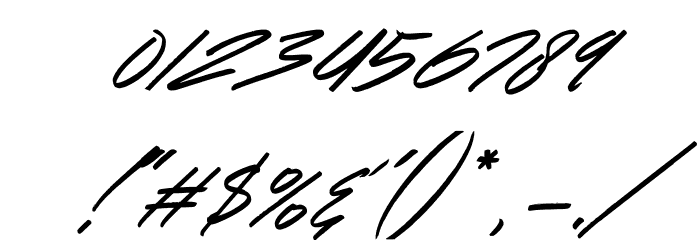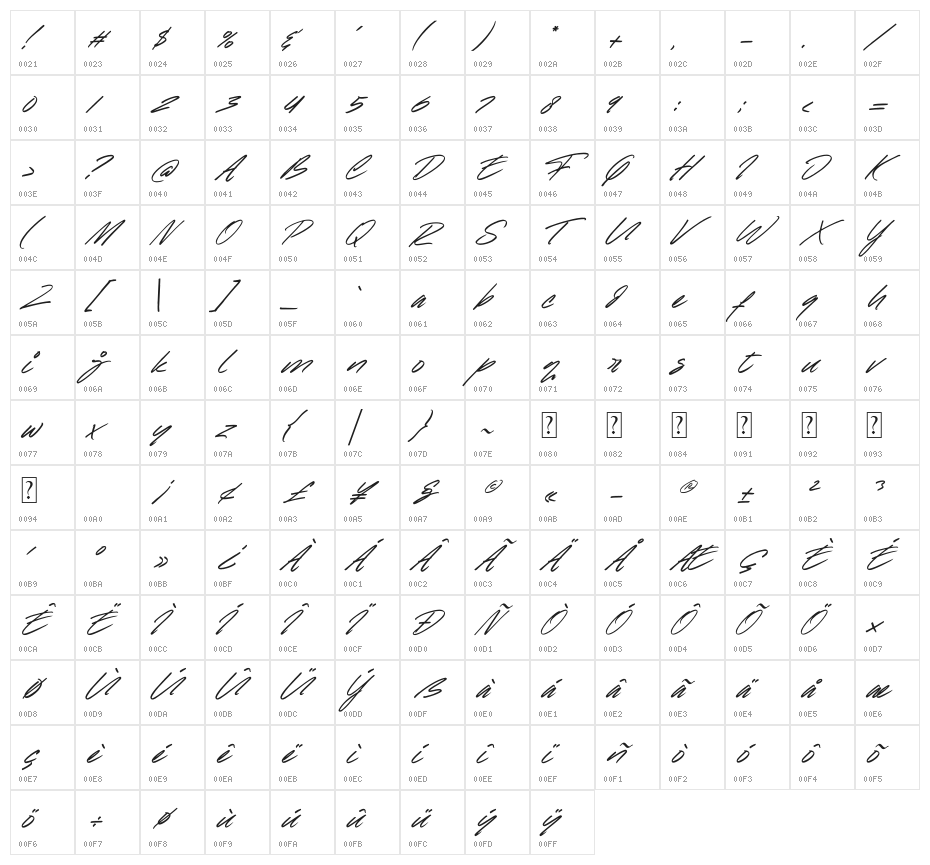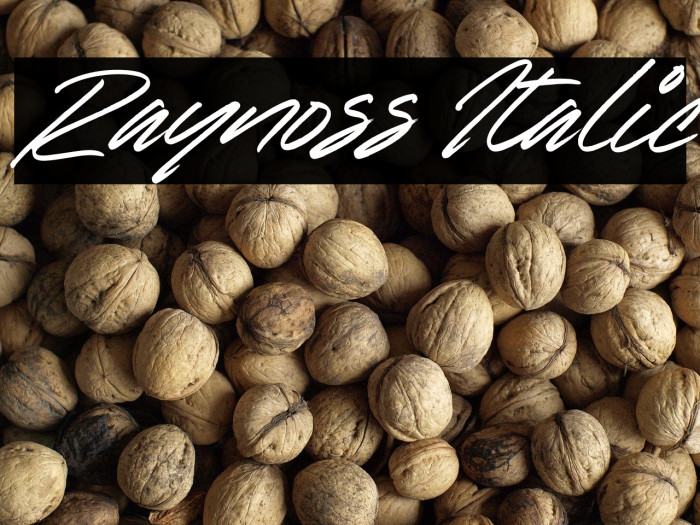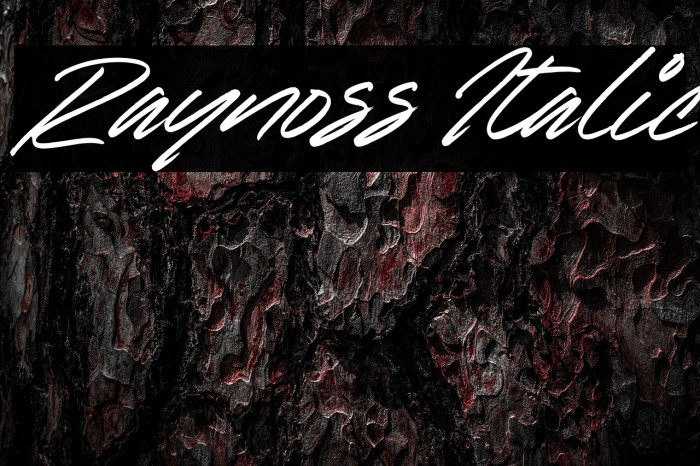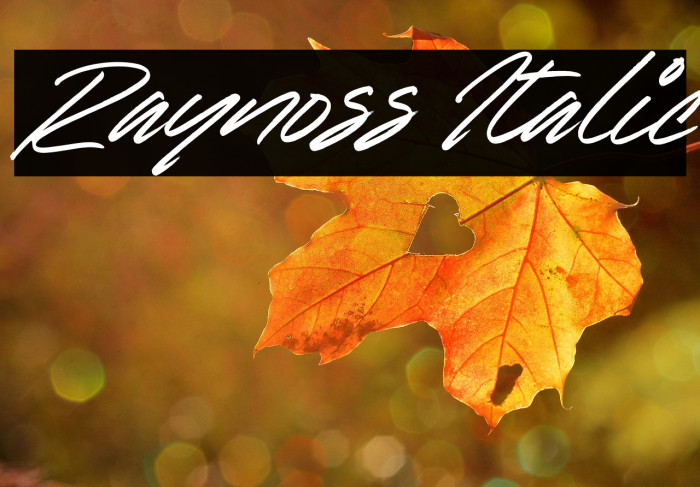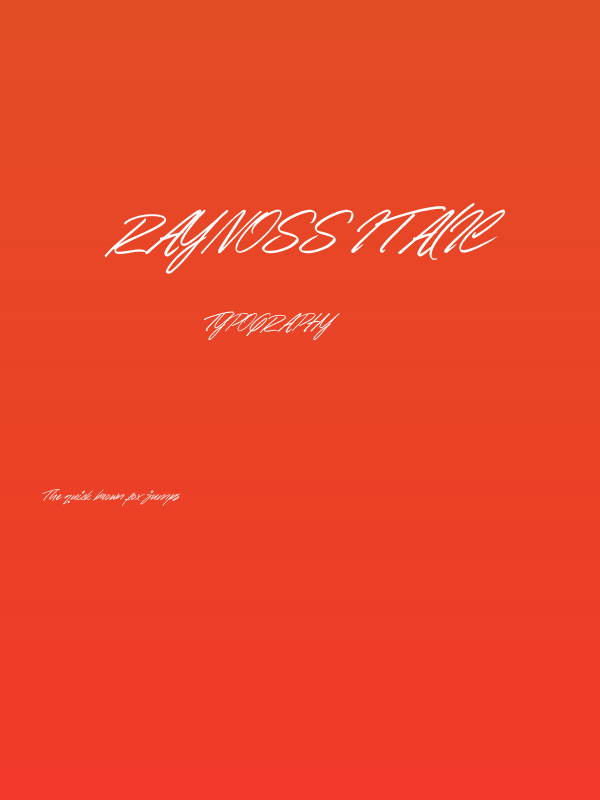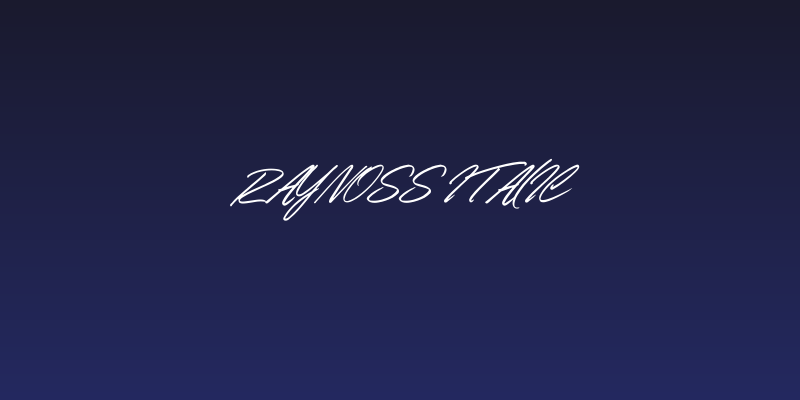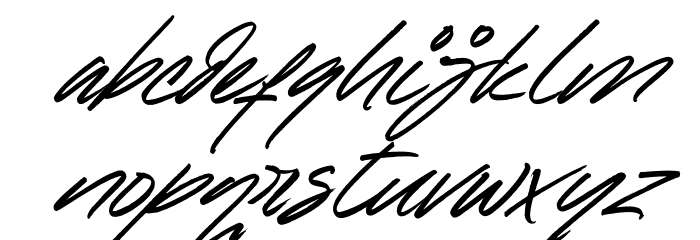
Raynoss Italic Font
Raynoss Italic Description
This font exhibits a dynamic and flowing script style, characterized by its slanted, cursive letterforms that convey a sense of motion and elegance. The strokes are fluid and connected, giving it a handwritten appearance. The uppercase letters are bold and prominent, while the lowercase letters maintain a consistent rhythm and flow. The numerals and special characters are designed to complement the overall style, maintaining the same slanted and cursive characteristics. This font's unique style makes it suitable for creative and expressive design projects.
| Proposed Projects | Ideal for wedding invitations, greeting cards, personal branding, and artistic posters. |